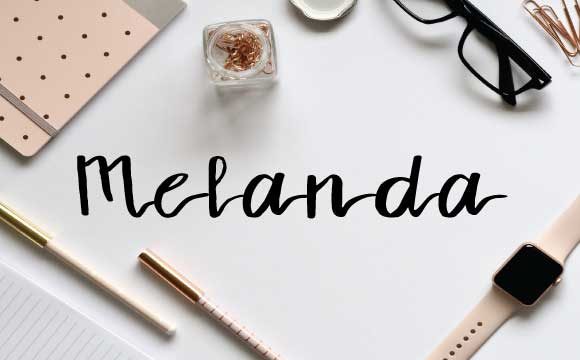
Introducing Melanda Font, the captivating script that transforms your designs into enchanting masterpieces.
Melanda's flowing curves and delicate strokes dance across the page, evoking a sense of ethereal beauty that will captivate your audience. Designed to emulate the art of hand-lettering, this script effortlessly adds a touch of elegance and individuality to any project.
Whether you're crafting invitations for a special occasion or creating eye-catching logos, Melanda Font is the perfect choice for adding a touch of whimsy and charm. Its versatility knows no bounds, making it suitable for a wide range of design projects, from personal branding to greeting cards.
Melanda Font's ability to emulate the natural flow and rhythm of handwritten text makes it an excellent choice for creating authentic and emotionally resonant designs. It's as if each character has been lovingly scripted by hand, infusing your creations with a personal touch that will leave a lasting impression.
So why settle for ordinary fonts when you can elevate your designs to extraordinary heights with Melanda Font? Embrace the power of script and watch as your creations blossom into works of art that will turn heads and spark conversations.